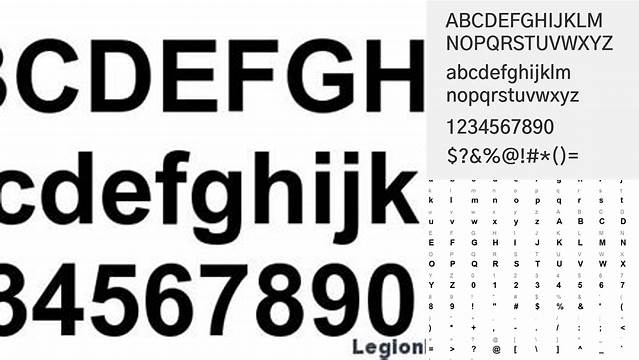
What is Arial Bold?
Let's dive deep into the world of Arial Bold! For those of you who might not be font aficionados, Arial Bold is a sans-serif typeface. What does that mean, you ask? Well, sans-serif fonts are characterized by their clean, minimalist design, lacking the small decorative strokes (serifs) that you'd find on fonts like Times New Roman. This gives Arial Bold a modern and uncluttered appearance, making it super versatile for a wide range of applications. Think about it – you've probably seen Arial Bold everywhere, from official documents and professional presentations to eye-catching website headlines and compelling marketing materials. Its widespread use speaks volumes about its readability and adaptability. This font is like that reliable friend who always has your back, no matter the situation.
But wait, there's more to Arial Bold than just its clean lines! It's not just about how it looks, but where it came from. The history of Arial Bold is pretty interesting, and understanding its origins can give you an even greater appreciation for this classic typeface. It was originally designed by a team at Monotype in 1982. This was during a time when the digital world was really starting to take off, and there was a growing need for fonts that looked good on computer screens. Arial was created as a competitor to Helvetica, another super popular sans-serif font. While there are definitely some similarities between the two (they're both clean and legible sans-serifs, after all), Arial has its own unique characteristics. Some people say Arial has a slightly more humanist feel compared to the more geometric Helvetica. Whether you agree or not, Arial has certainly carved out its own space in the font world! The bold version, of course, just adds that extra oomph – making the text stand out even more. So, when you're looking to download Arial Bold font free, you're not just grabbing any old font; you're getting a piece of design history!
The History and Evolution of Arial Bold
To truly appreciate Arial Bold, we need to take a quick trip back in time. Developed by Monotype in 1982, Arial was designed as a contemporary alternative to Helvetica, a widely used sans-serif typeface. The goal was to create a font that was both legible and aesthetically pleasing on digital displays, which were becoming increasingly prevalent in the early 1980s. Arial's design incorporates subtle differences from Helvetica, such as slightly more rounded terminals and a more uniform stroke weight. These nuances contribute to Arial's distinct personality and readability, particularly in body text.
Arial Bold, as the name suggests, is a heavier weight variation of the original Arial typeface. The bold weight enhances the font's visual impact, making it ideal for headlines, subheadings, and other text elements that require emphasis. Over the years, Arial Bold has become a staple in the design world, pre-installed on countless computers and used extensively in various applications. Its widespread adoption has solidified its status as a reliable and versatile font choice.
Common Uses of Arial Bold
Now, let's talk about where you might encounter Arial Bold in the wild. You know, those real-world examples that bring its versatility to life! Think about it: you've probably seen it countless times without even realizing it. It's like that unsung hero of the font world, quietly doing its job in the background. One of the most common places you'll find Arial Bold is in business documents. Reports, memos, presentations – you name it! Its clean and professional look makes it a natural fit for these kinds of materials. Imagine a crucial business proposal with headings in Arial Bold – it instantly commands attention and gives the document a polished feel. But it's not just for the corporate world! Arial Bold also shines in marketing materials. Think about brochures, flyers, and advertisements. The bold weight is fantastic for headlines and calls to action, grabbing the reader's eye and conveying a sense of importance. "Download Arial Bold font free today!" See? It works!
Beyond print, Arial Bold is a star in the digital realm too. Websites often use it for headings and navigation menus, ensuring a clear and user-friendly experience. Its legibility on screens makes it a winner for online content. And let's not forget about software interfaces! Many applications use Arial Bold for buttons, labels, and other UI elements, contributing to a consistent and intuitive user experience. What makes Arial Bold so adaptable? Well, it's a combination of factors. Its sans-serif design is inherently modern and clean, making it suitable for a wide range of styles and aesthetics. The bold weight adds emphasis without being overly dramatic, striking a perfect balance between prominence and readability. Plus, its widespread availability means that it's a safe choice – you can be pretty confident that your audience will be able to see it as you intended. So, next time you're looking for a font that's both professional and versatile, remember Arial Bold. It's a true workhorse that can handle just about anything you throw at it!
- Business Documents: Arial Bold is frequently used in reports, memos, and presentations for its professional and clean appearance.
- Marketing Materials: Its bold weight makes it ideal for headlines, brochures, flyers, and advertisements, where emphasis is crucial.
- Web Design: Arial Bold is a popular choice for website headings, navigation menus, and body text due to its legibility on screens.
- Software Interfaces: Many applications use Arial Bold for buttons, labels, and other UI elements to ensure a consistent and user-friendly experience.
In conclusion, downloading Arial Bold font free is possible through various legitimate methods, including checking your operating system's font library or using reputable font websites. However, it's essential to understand font licensing and usage restrictions to avoid copyright infringement. If Arial Bold isn't available for free or doesn't meet your project's needs, numerous excellent free alternatives, such as Roboto and Open Sans, offer similar aesthetics and functionality. By following the tips outlined in this guide, you can effectively use Arial Bold or its alternatives to create visually appealing and impactful designs. Happy font hunting, folks!